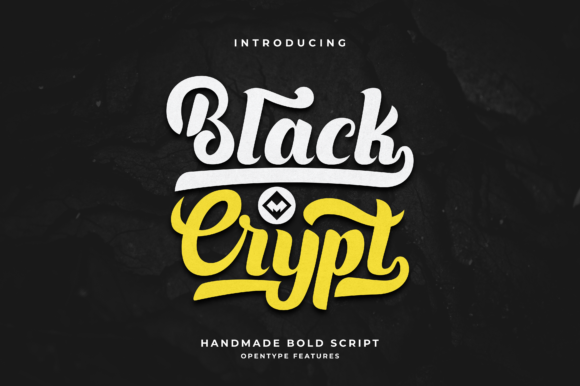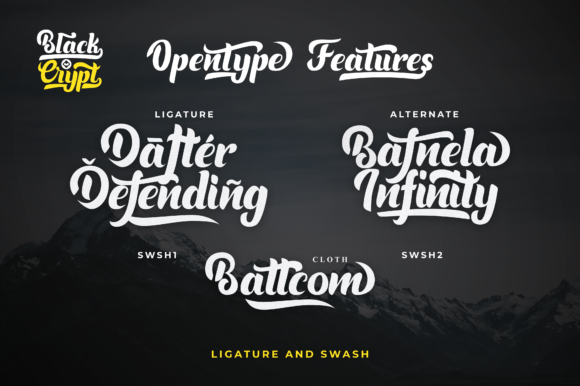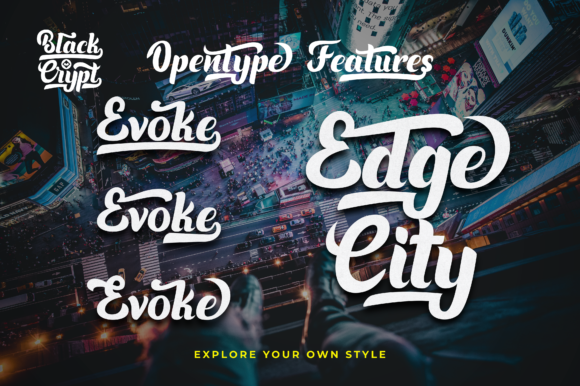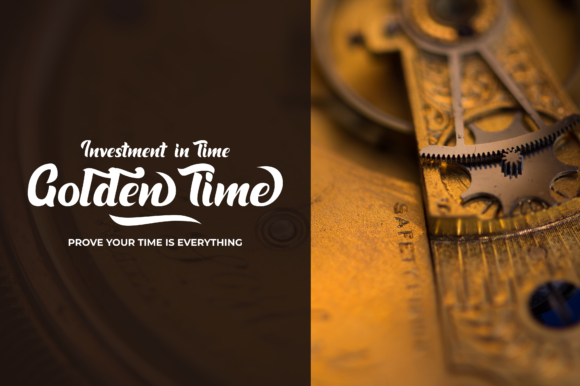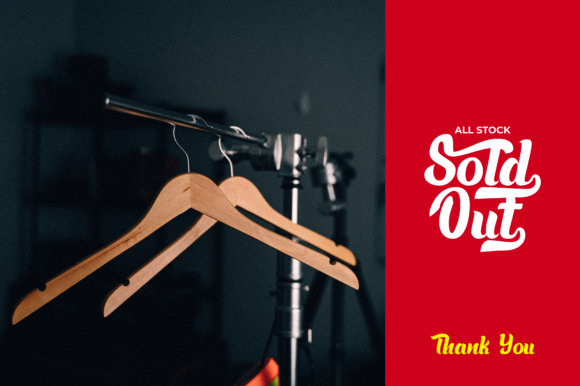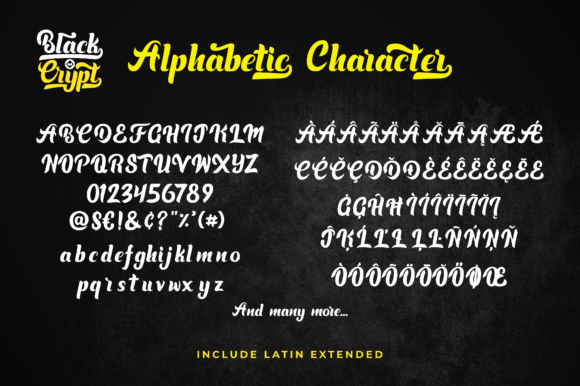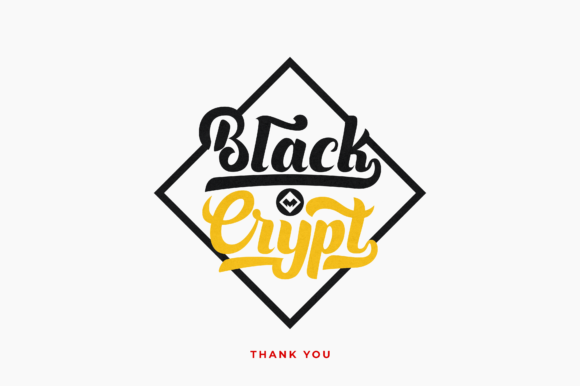
Blackcrypt Font
About Blackcrypt Font
Blackcrypt is a fun and cute handwritten font with a bold feel. It will add a powerful vibe to any design project.